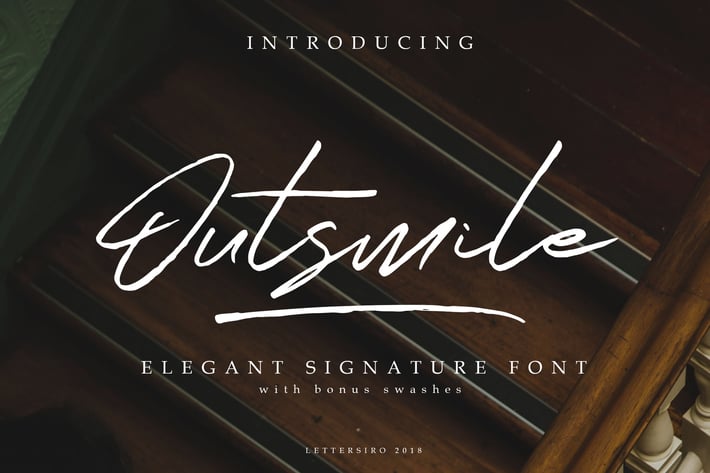
Outsmile Signature Font
Outsmile Font is modern handwritten font. Outsmile is Perfect and very elegant for branding, signature, watermark, business card, clothing, magazine, web, and any other design projects. This font is easy to use, simple, and classy.
Bonus 24 swashes in otf/ttf format. These swashes is nice to paired with the font.